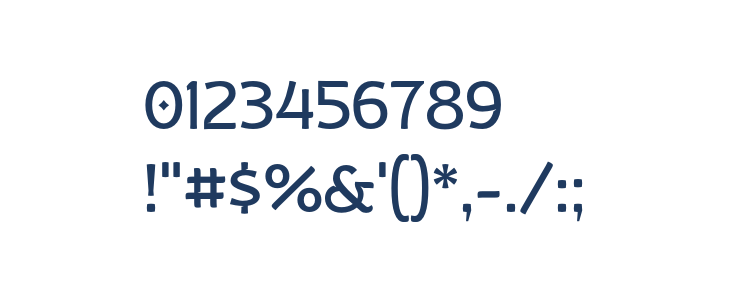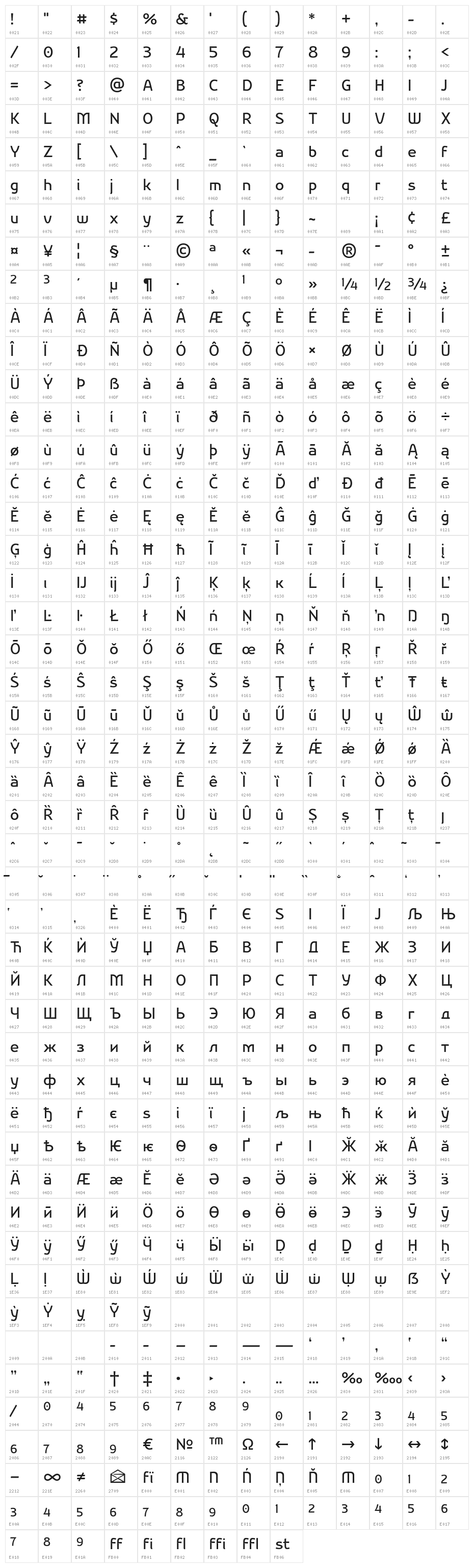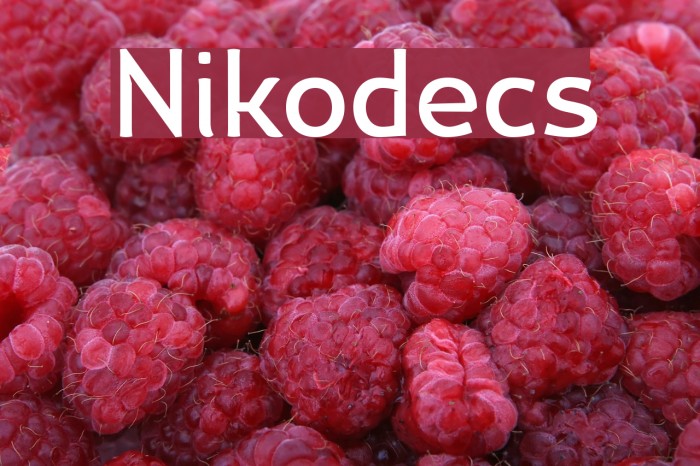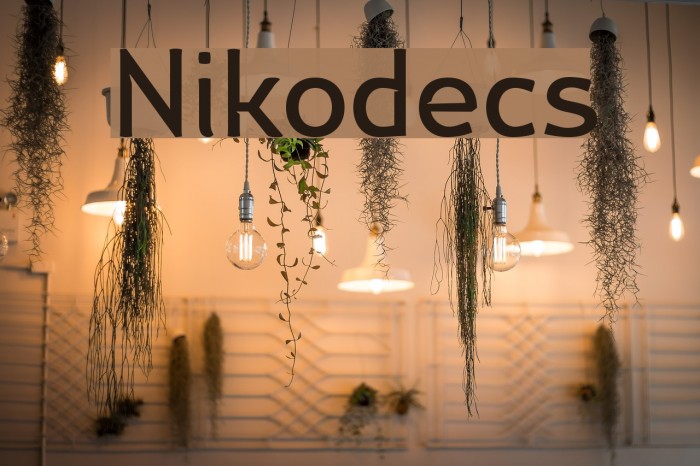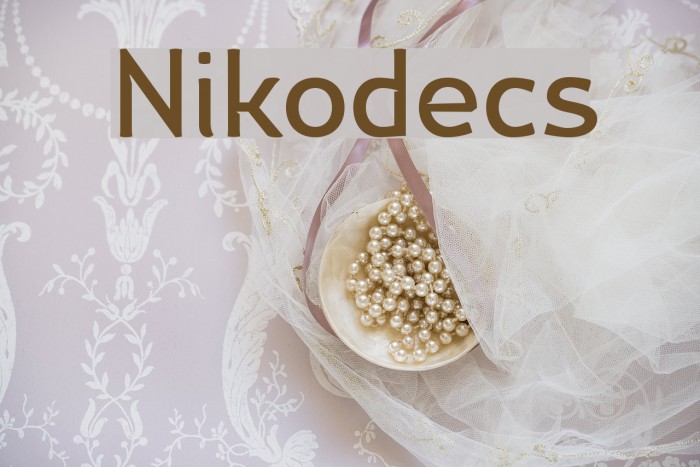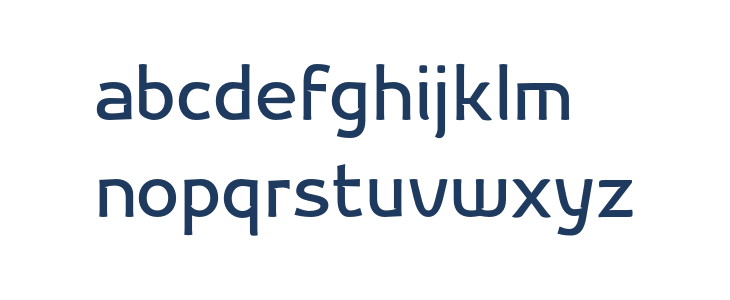
Nikodecs Font
Nikodecs Description
This font features a clean and modern sans-serif style with smooth curves and a uniform stroke width. The characters are well-balanced, offering a harmonious and readable appearance. Uppercase letters are bold and assertive, while lowercase letters maintain a friendly and approachable look. The numerals are clear and distinct, making them suitable for various applications. Special characters are designed to complement the overall aesthetic, ensuring consistency across all glyphs. This font is versatile, suitable for both digital and print media, and can be used effectively in a wide range of design projects.